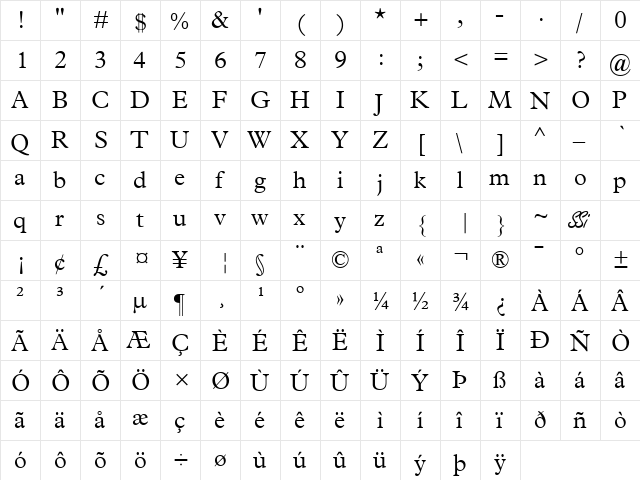
Terminus Light SSi Light
Design Context for Terminus Light SSi Typeface
Terminus Light SSi is a composed and adaptable typeface that performs quietly and consistently across a wide range of design contexts. The delicate stroke weight brings airiness and refinement to layouts.